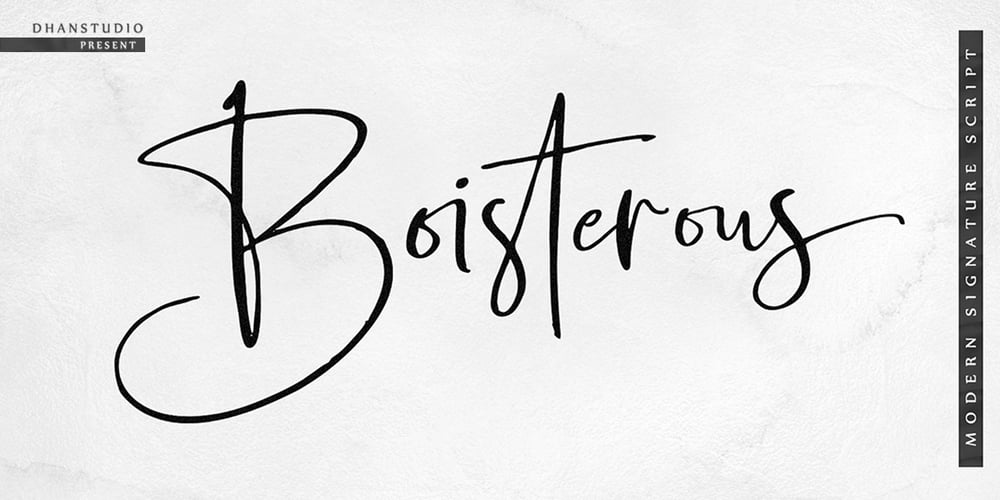
Boisterous Script Font Family was designed by Mauli Zari and published by Dhan Studio. Boisterous Script contains 1 styles and family package options. Boisterous is a fashionable and elegant handwriting font, which looks like a signature, This font is intentionally made with unique ligatures and alternates. Boisterous fits perfectly for branding, logos, business cards, posters, invitations, greeting cards, news, product packaging, blog posters, all including personal charms etc. This font is also equipped with unique and interesting ligatures. By using these ligatures you can give your text a real hand-lettered style: tt ss ow os on oh nn ll il et en eb ch an ak ut st oy ot ont oi nt mm in ff er el ck ar al ab wh th sh ou oo ol of ng it ht es em co at am ah